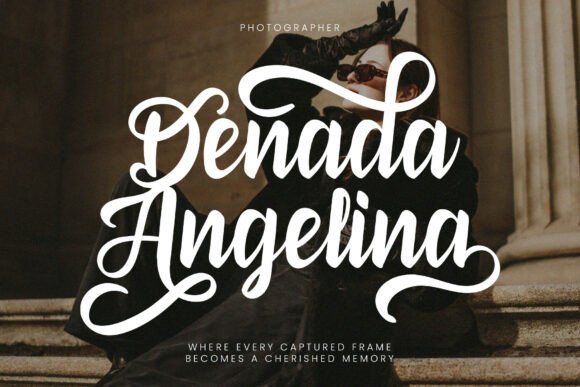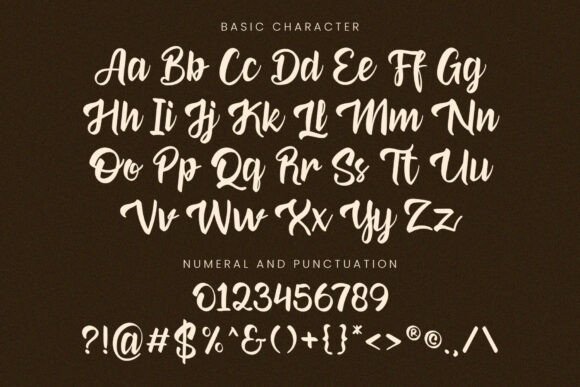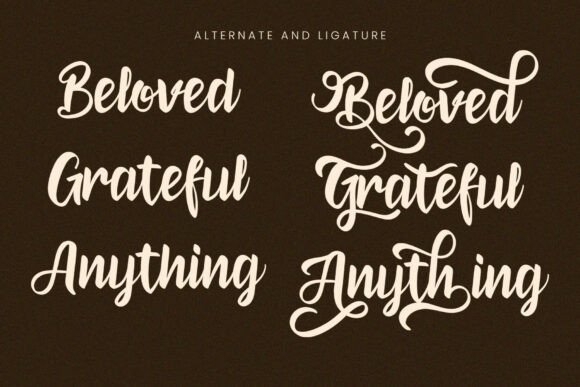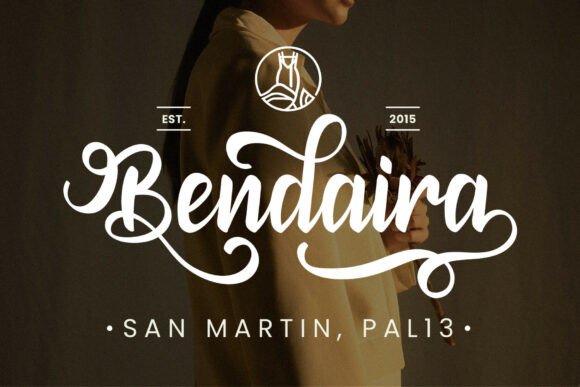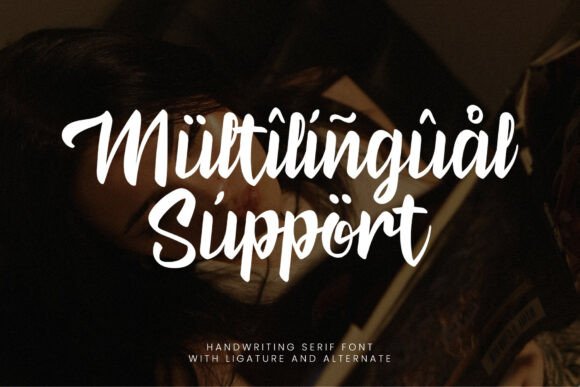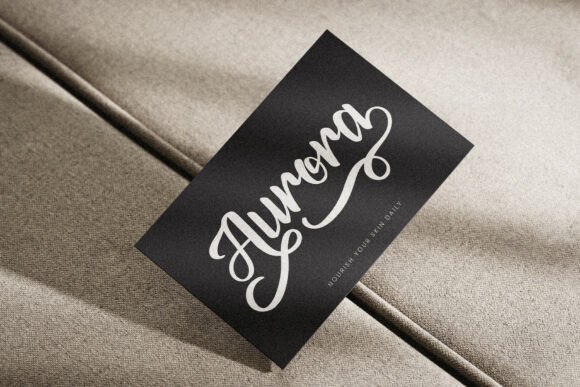
Aurelita Font: Elevate Your Designs with Elegance and Flair
In the world of typography, a font can make or break the aesthetic of a design. For those seeking a stylish and modern feminine touch, Aurelita Font is an excellent choice. This beautiful handwritten script font is perfect for fashion branding, social media templates, logos, and wedding invitations that require elegance and flair.
What is Aurelita Font?
Aurelita Font is a stylish handwritten script font designed to add a touch of sophistication and glamour to any design. Its smooth ligatures and playful alternates make it an ideal choice for designers and crafters looking to create visually stunning projects. With its modern feminine feel, Aurelita Font is sure to elevate your designs and leave a lasting impression.
Key Features of Aurelita Font
- Smooth Ligatures: Aurelita Font features smooth ligatures that seamlessly connect letters, creating a beautiful and flowing script.
- Playful Alternates: The font includes playful alternates that add a touch of whimsy and personality to your designs.
- Modern Feminine Touch: Aurelita Font has a distinctly modern and feminine feel, making it perfect for fashion branding, social media templates, and wedding invitations.
- Elegance and Flair: The font’s elegant and refined aesthetic adds a touch of sophistication to any design.
Uses for Aurelita Font
Aurelita Font is versatile and can be used for a variety of design projects, including:
- Fashion Branding: Create stunning fashion logos, labels, and packaging with Aurelita Font.
- Social Media Templates: Use Aurelita Font to create eye-catching social media templates that stand out from the crowd.
- Logos: Design unique and memorable logos for your business or personal brand with Aurelita Font.
- Wedding Invitations: Add a touch of elegance and sophistication to your wedding invitations with Aurelita Font.
Why Choose Aurelita Font?
With so many fonts available, why choose Aurelita Font? Here are just a few reasons:
- Unique and Versatile: Aurelita Font is a unique and versatile font that can be used for a wide range of design projects.
- Easy to Read: The font is easy to read, making it perfect for body text and headlines.
- High-Quality Design: Aurelita Font is designed with high-quality craftsmanship, ensuring a professional finish.
Tips for Using Aurelita Font
To get the most out of Aurelita Font, here are a few tips:
- Pair with Neutral Colors: Pair Aurelita Font with neutral colors to create a clean and elegant design.
- Experiment with Ligatures: Experiment with the font’s ligatures to create a unique and personalized look.
- Use for Headlines and Titles: Use Aurelita Font for headlines and titles to add a touch of elegance and sophistication.
Aurelita Font is a stunning handwritten script font that adds a touch of elegance and flair to any design. With its smooth ligatures, playful alternates, and modern feminine feel, it’s perfect for fashion branding, social media templates, logos, and wedding invitations. Whether you’re a designer or crafter, Aurelita Font is an excellent choice for those seeking to elevate their designs and create a lasting impression.